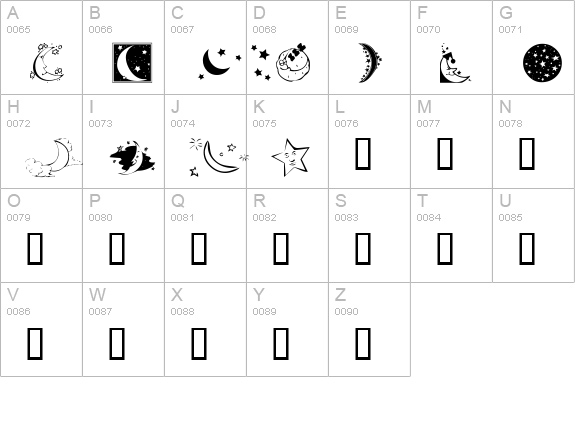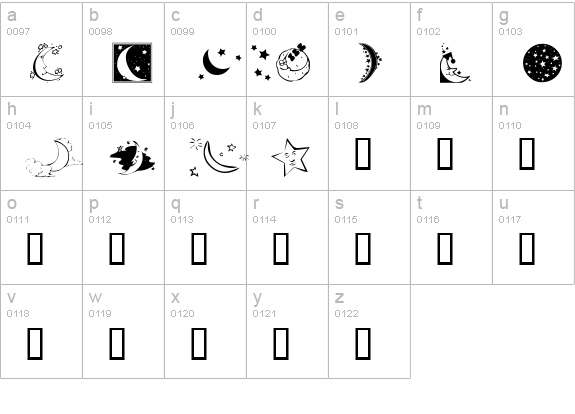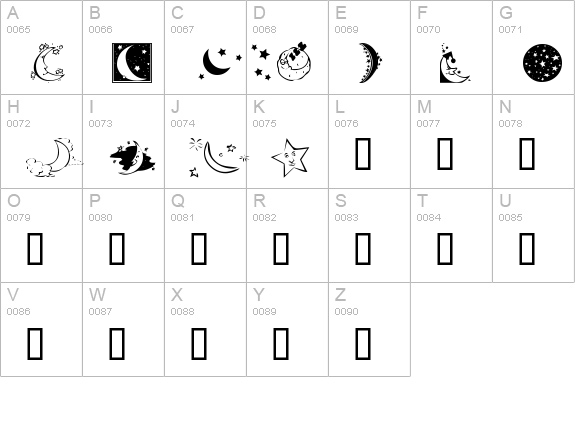
KR Starry Night Font Details
The KR Starry Night font is a whimsical and enchanting typeface that evokes the magical beauty of a starry night sky. Its delicate and flowing characters are adorned with twinkling stars, creating a truly captivating and dreamy aesthetic. This font is perfect for adding a touch of fantasy and wonder to your designs, whether you're working on invitations, greeting cards, posters, or any other creative project. The best part? KR Starry Night is completely free to download at FontsMarket.com, making it easily accessible to all designers and creatives looking to add a touch of celestial charm to their work. Embrace the magic of the night sky with this enchanting font and let your imagination soar to new heights. Download KR Starry Night today and bring a touch of starlit beauty to your designs!